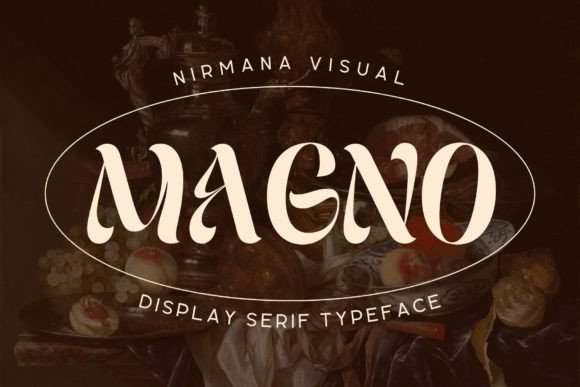
Journey back in time with Magno, a mesmerizing display font brimming with vintage charm and timeless elegance. Sigit Dwipa, the creative genius behind this masterpiece, has meticulously crafted each letterform to exude an aura of nostalgia, making Magno the perfect choice for designers seeking to evoke a sense of history and heritage in their projects.
Unleash the power of Magno to create logos that radiate a classic, sophisticated appeal. Its distinctive letterforms, reminiscent of an era gone by, will elevate your brand identity, leaving an indelible mark on your audience. Whether you're designing for a fashion house, a coffee shop, or a vintage-inspired boutique, Magno has the versatility to adapt to your vision and make your designs shine.
Magno's captivating presence extends beyond logos, making it the ideal choice for branding projects that seek to evoke a sense of nostalgia and authenticity. Its timeless charm effortlessly elevates social media posts, advertisements, and product designs, adding a touch of sophistication that resonates with audiences.
Dive into a world of creative possibilities with Magno, the font that breathes life into your design aspirations. Its versatility shines through in a multitude of projects, from eye-catching posters and brochures to stunning invitations and greeting cards. Let Magno's vintage allure transport your designs to a bygone era, capturing the hearts of your audience and leaving them yearning for more.
With Magno at your fingertips, you possess the key to unlocking a treasure trove of design opportunities. Its ability to effortlessly blend tradition with modernity makes it the perfect companion for designers seeking to make a statement. Embrace the beauty of Magno, and watch as your creative visions transform into tangible masterpieces that stand the test of time. Embrace Magno, and embark on a design journey that will leave you spellbound.